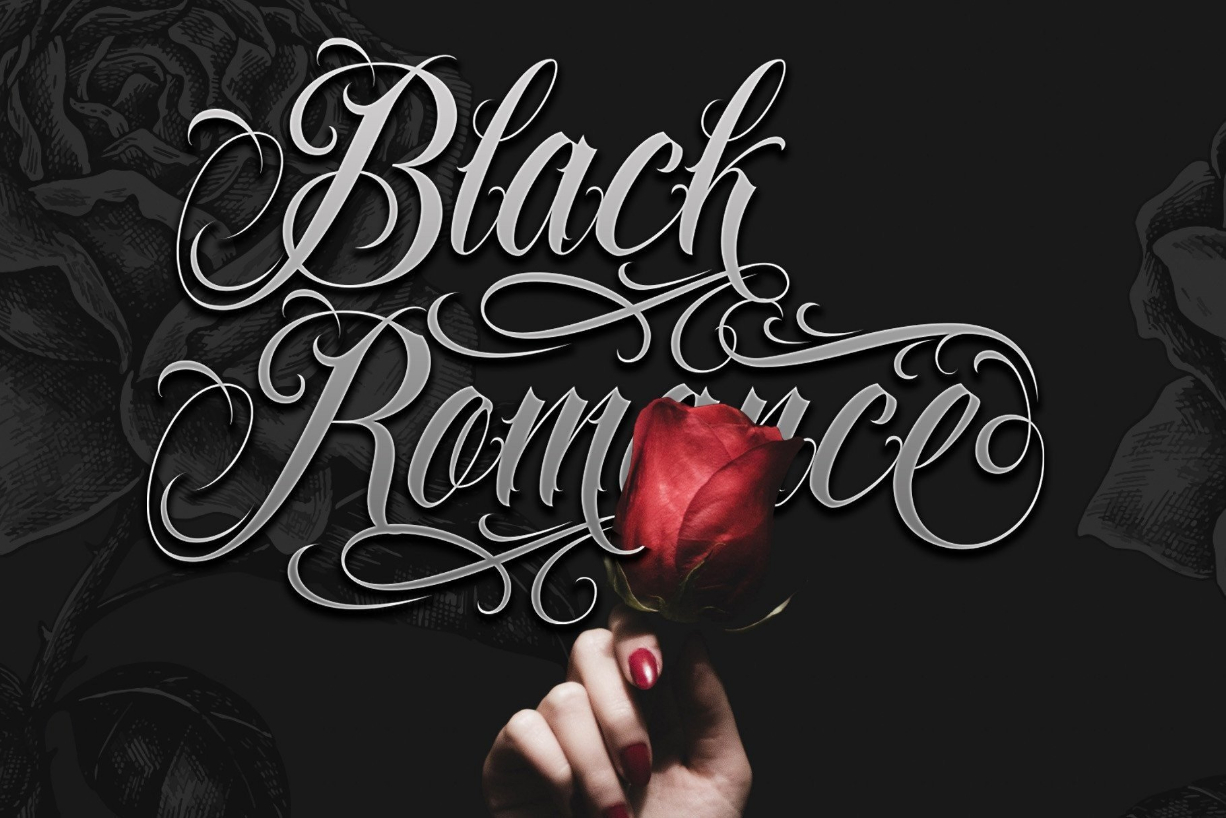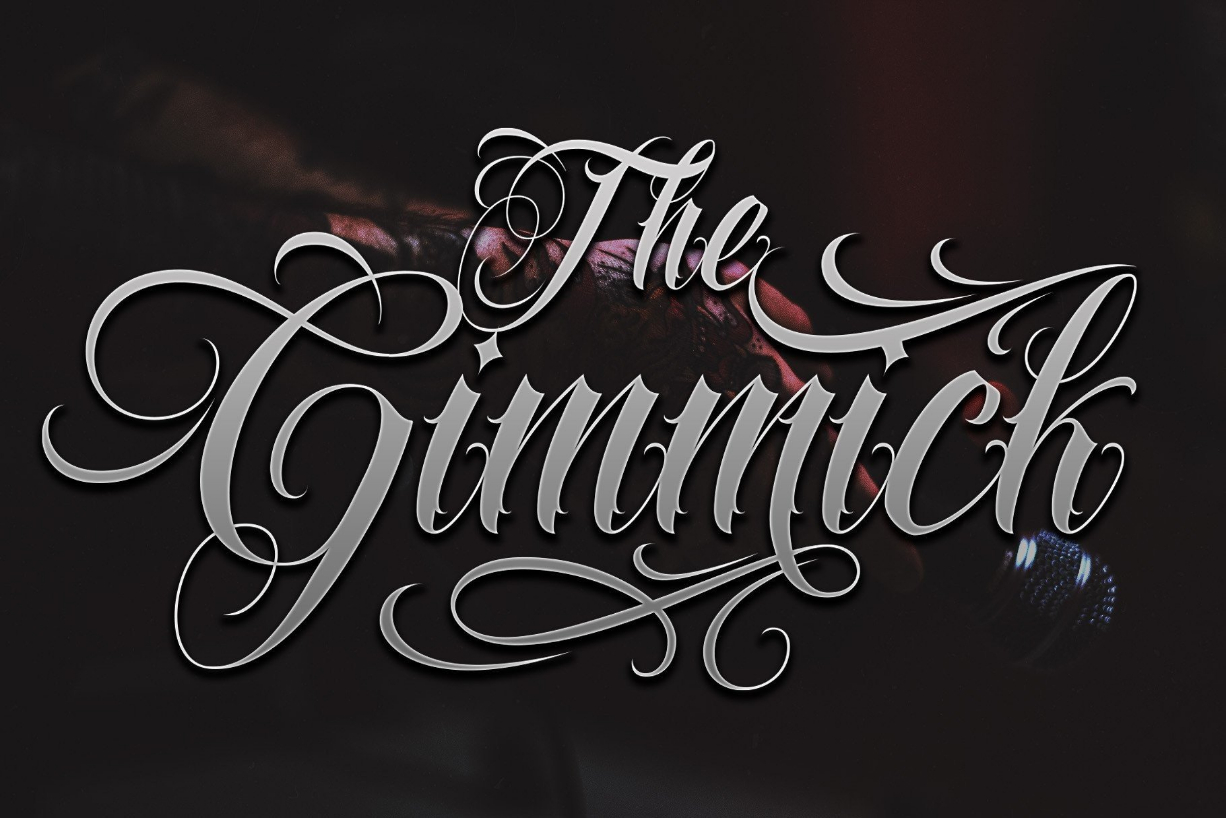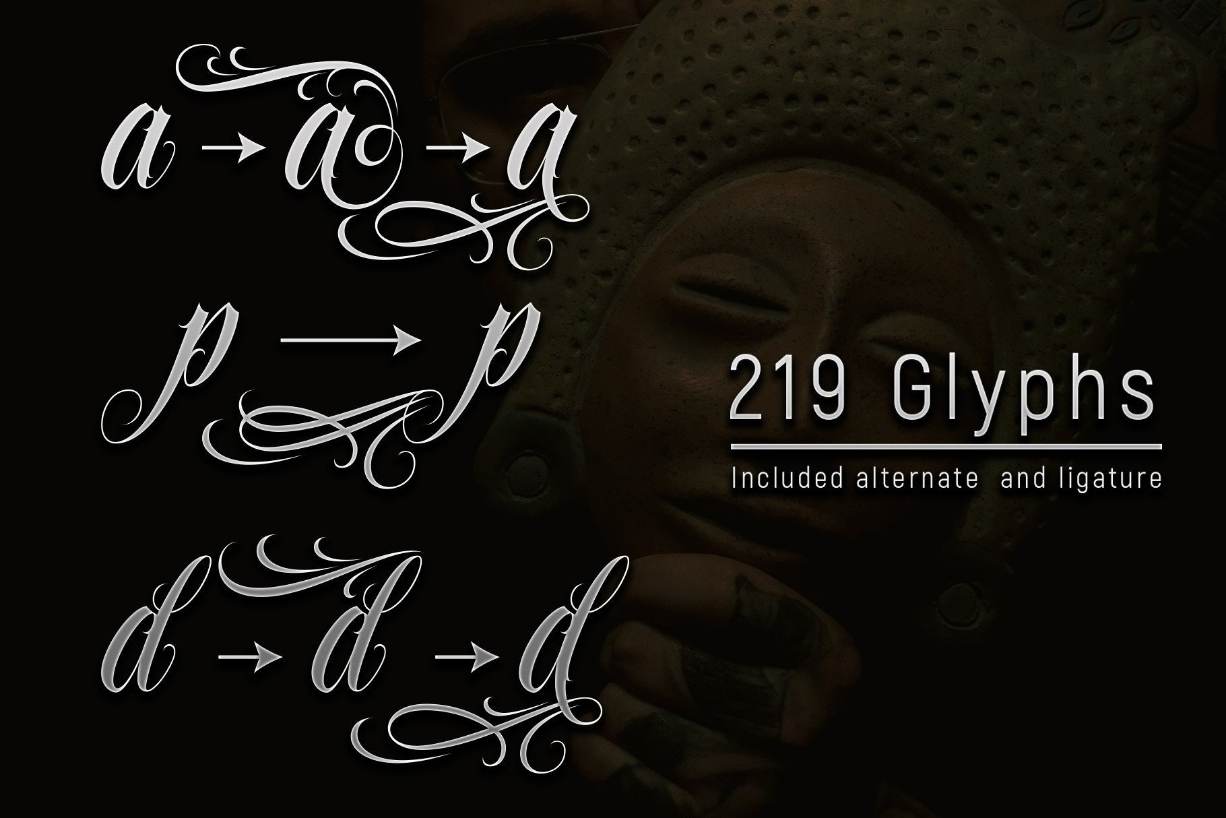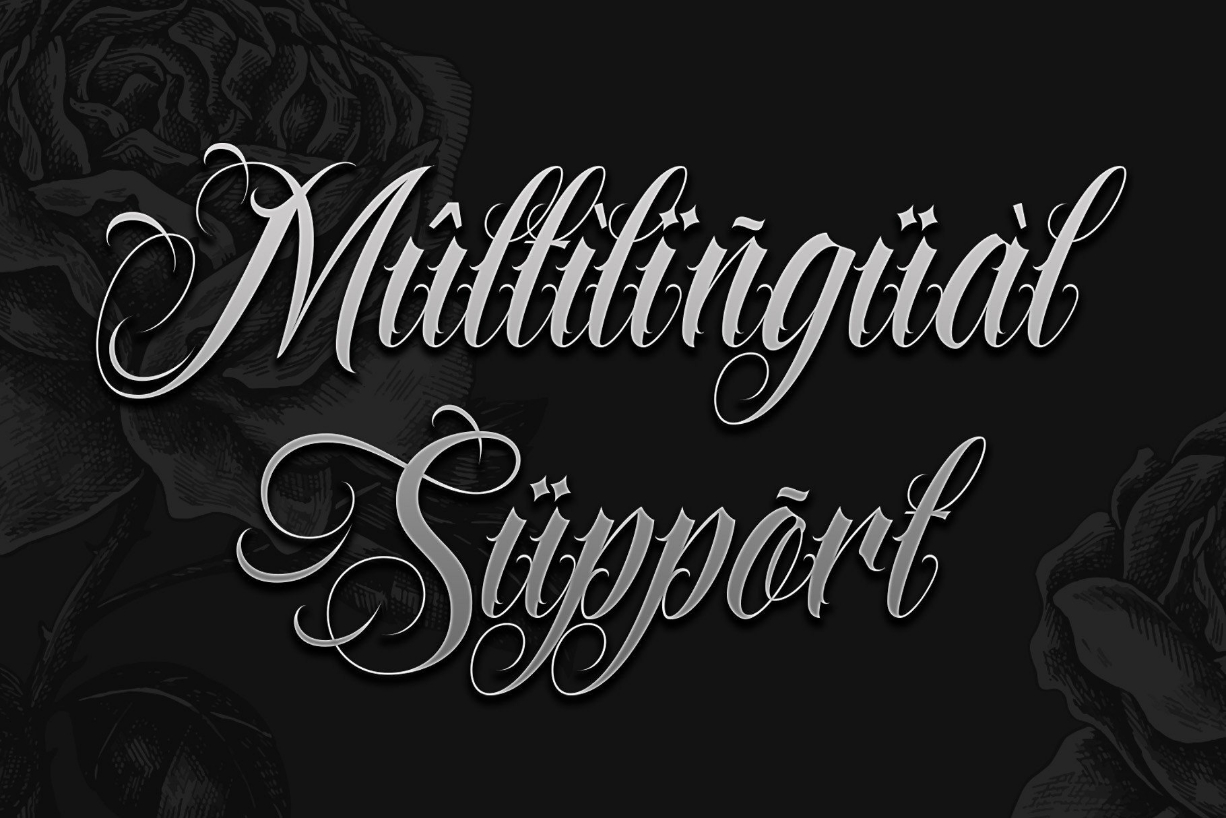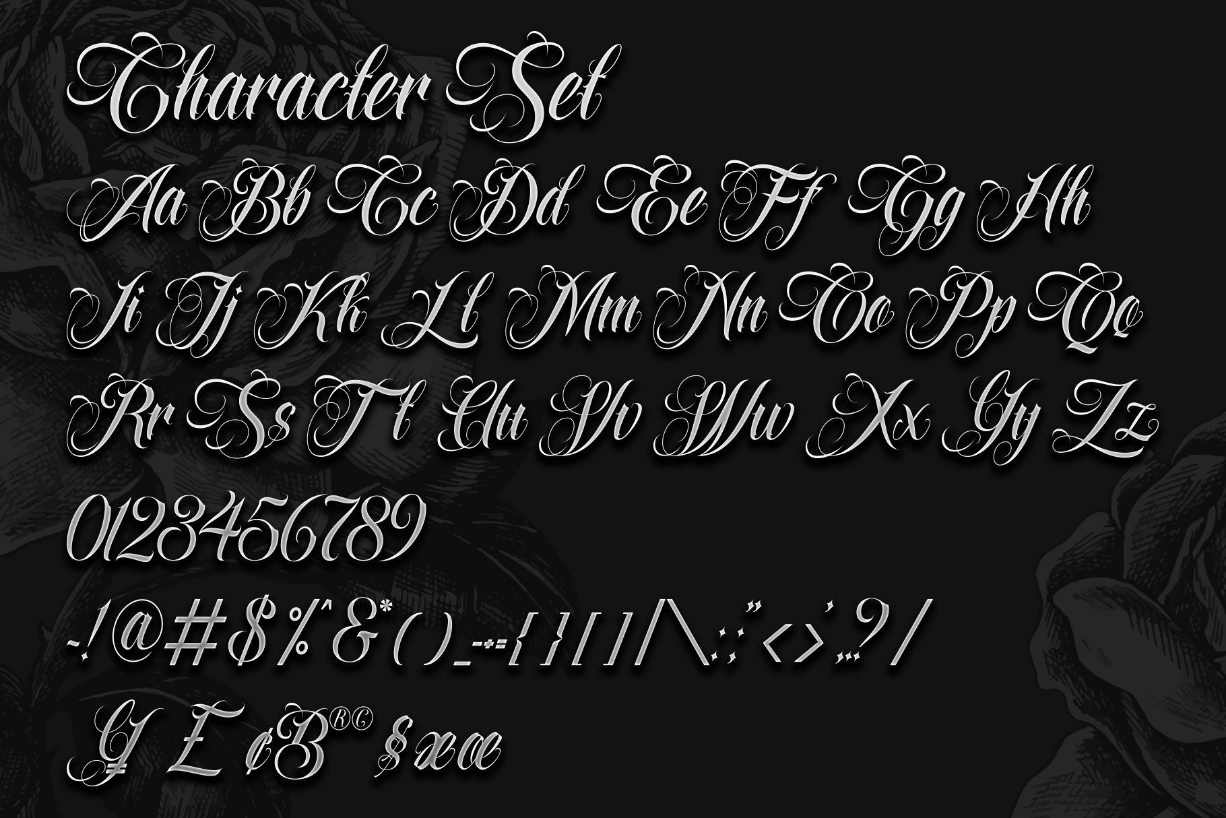
Angelicha Font
About Angelicha Font
Angelicha is a contemporary blackletter tattoo font that feels right at home on logos, t-shirt designs, posters, flyers, and other brand identity items. Add it confidently to your projects, and you will love the results.